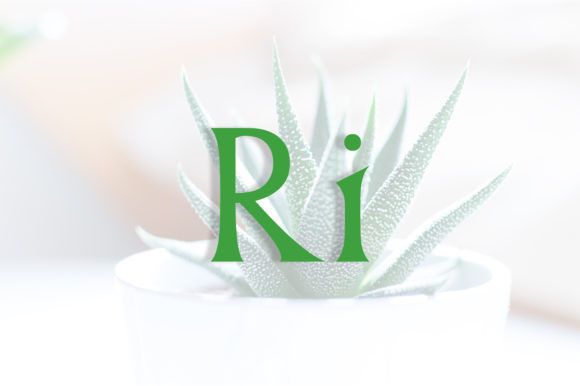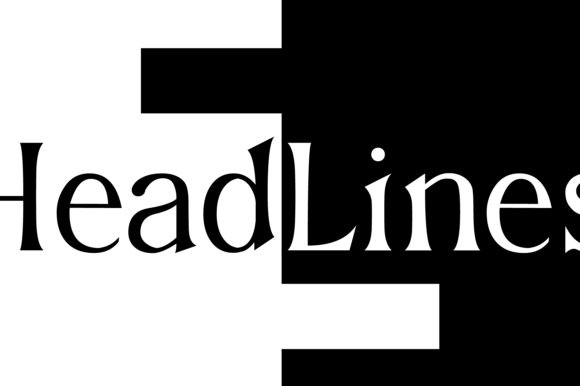
Ri Font
Ri is a contemporary, elegant serif typeface, suitable for use in title design such as invitations, signboards, book titles, stationery designs, quotes, branding, logos, greeting cards, packaging designs, posters, and much more. It comes with lowercase letters that are perfect for body copy in books or digitally, on websites and apps.